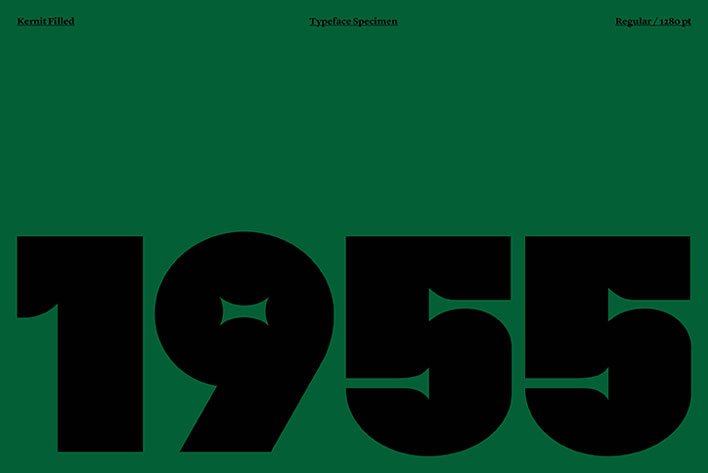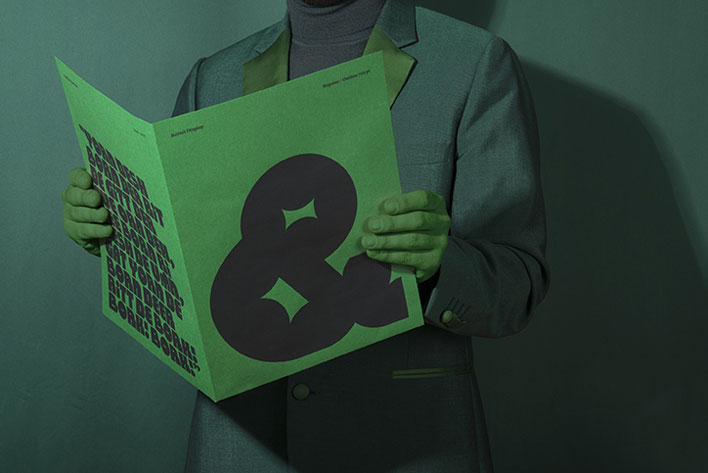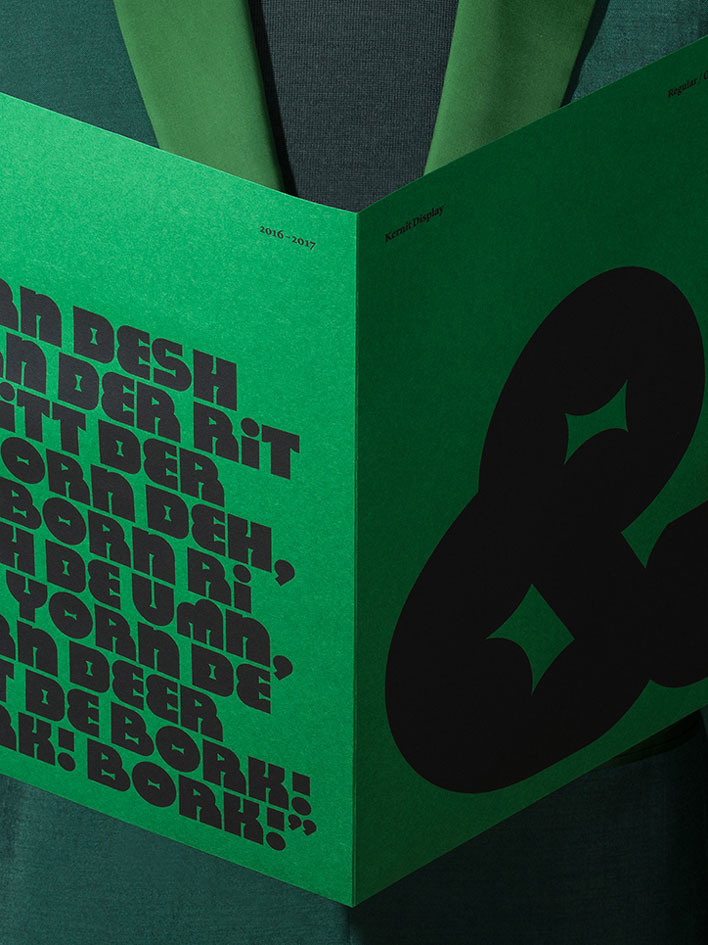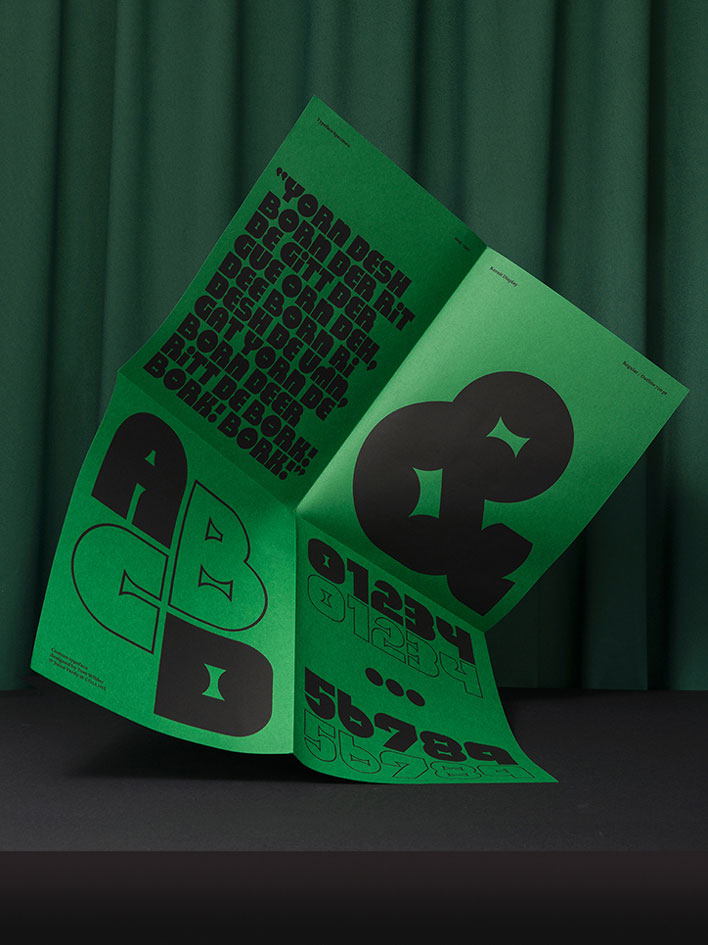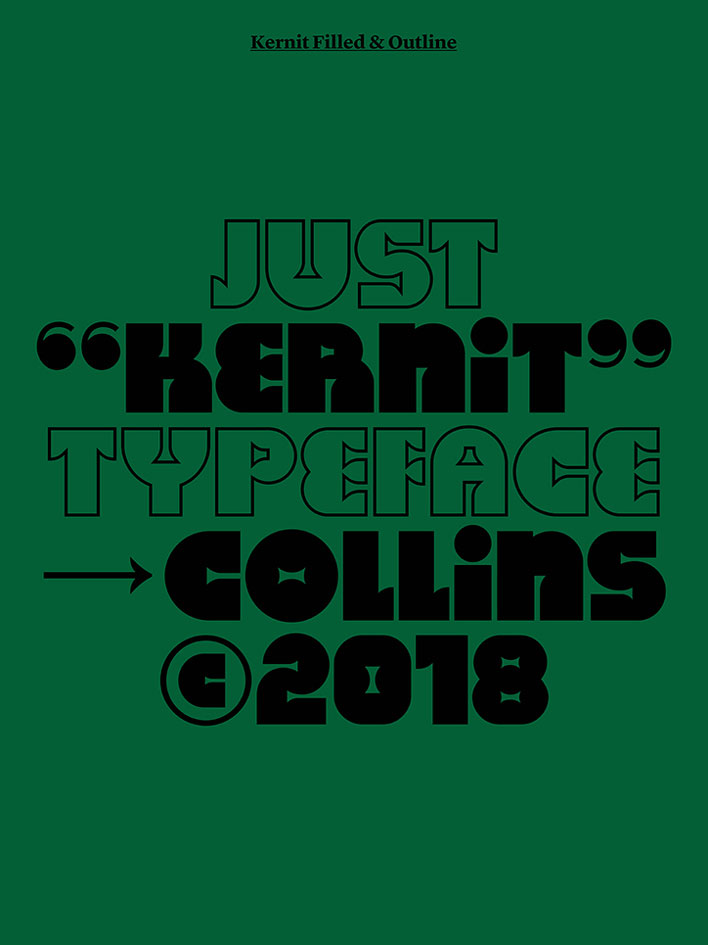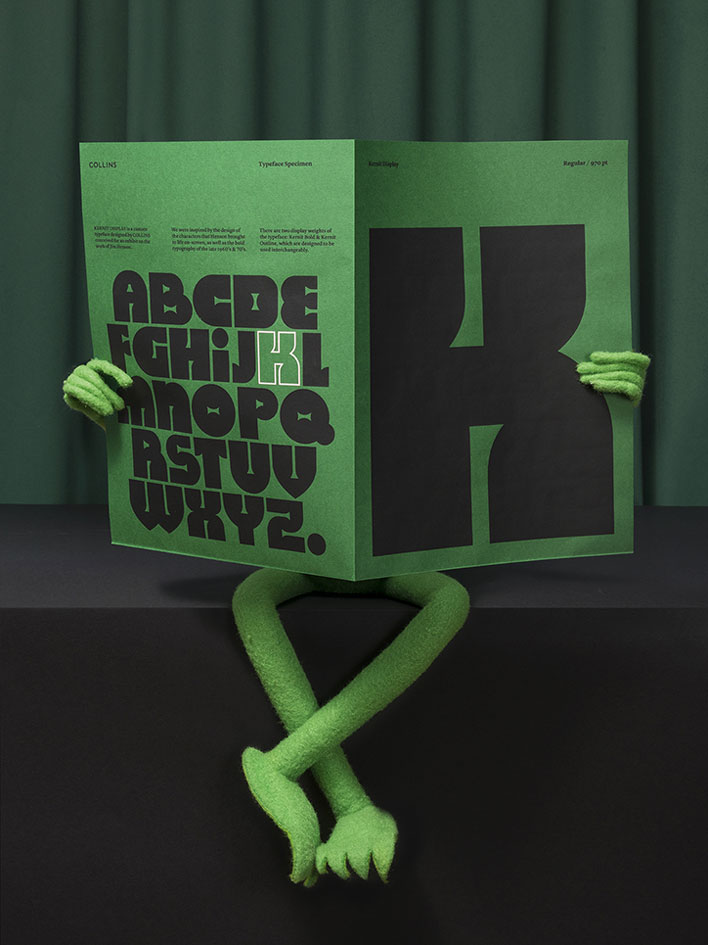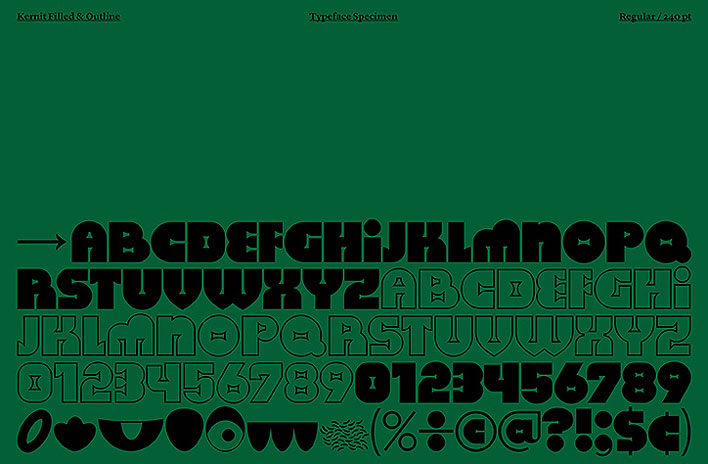
When Collins & MCKL designed a new font for an exhibition about Jim Henson, the creator of the Muppet Show, the naturally named it Kernit, a word referencing to both Kermit the frog and kerning, a typographic term.
The font, intended for the Jim Henson Exhibition at the Museum of the Moving Image, features bold characters inpired by the show. You can download it in bold and outline on this website.